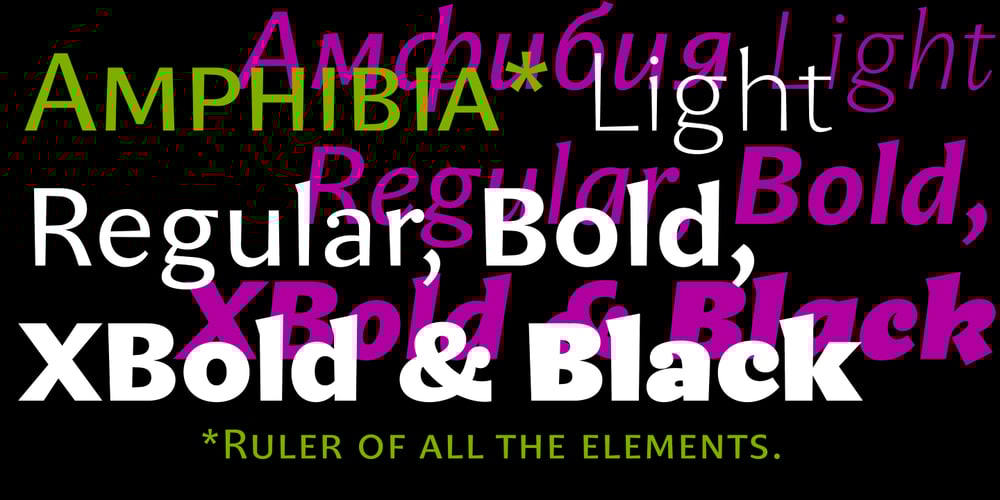
Amphibia
Amphibia font
Amphibia Font Family was designed by František Štorm and published by Storm Type Foundry. Amphibia contains 13 styles and family package options. On a sans-serif basis it contains trapezoid ascenders, balls & rounded ears, which may resemble the serif feel in smaller sizes, thus long reading is surprisingly easy. Amphibia is suitable for everything from contemporary poetry to branding and informational systems.